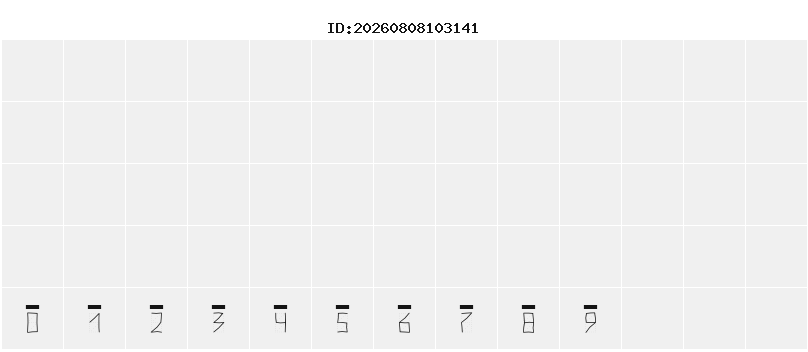
PostIndexHand3 Preview
• Font Name: PostIndexHand3
• Designer: Victor Figirnov
About PostIndexHand3.ttf
PostIndexHand3.ttf is a modern, elegant sans-serif font designed for ultimate readability and visual harmony. Perfect for branding, headlines, web design, and print materials.